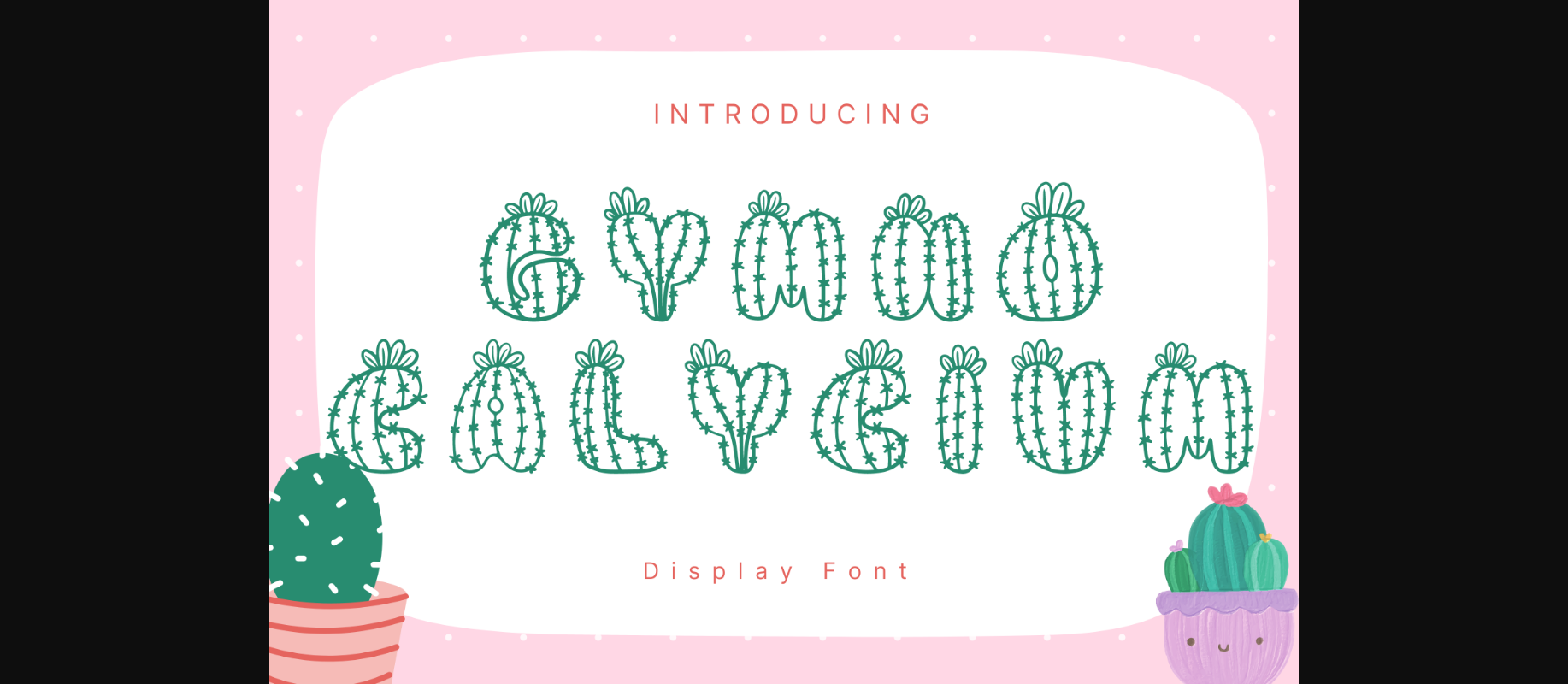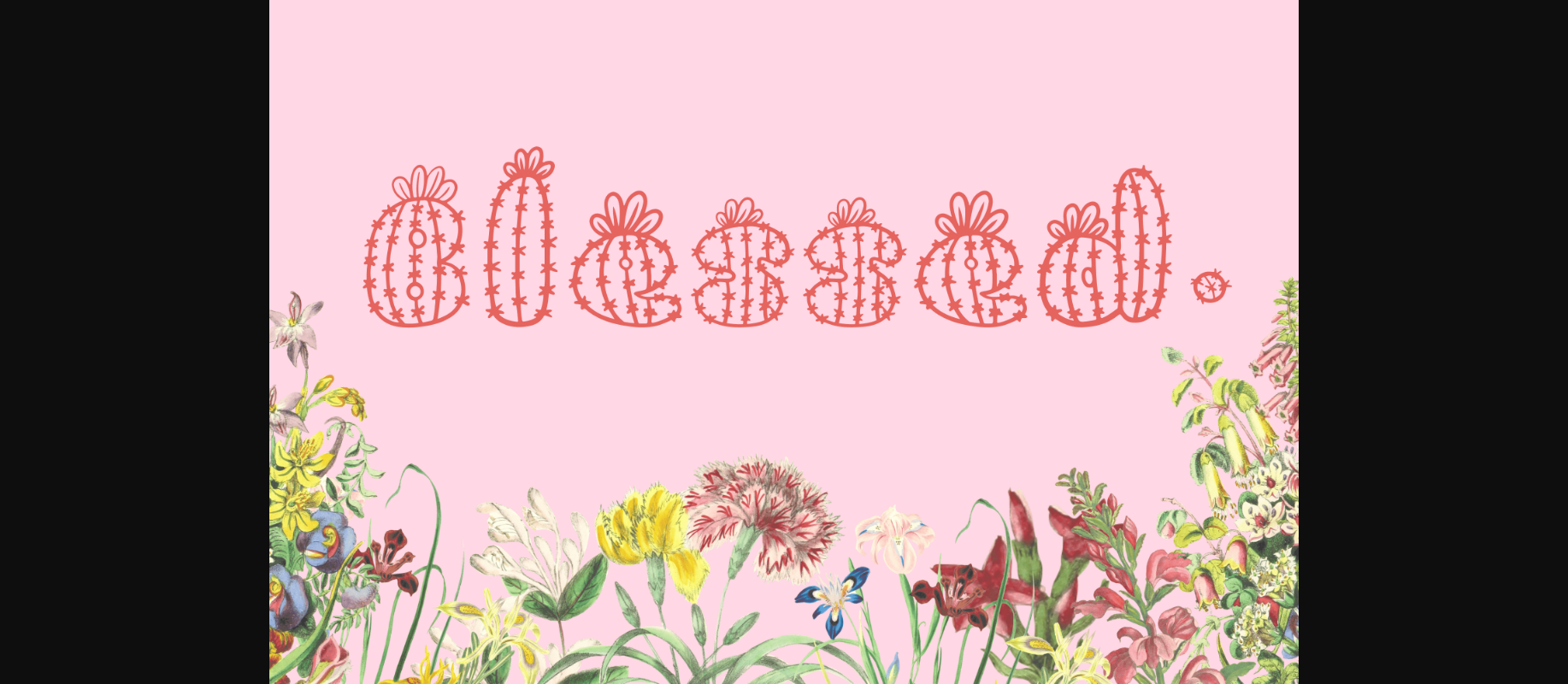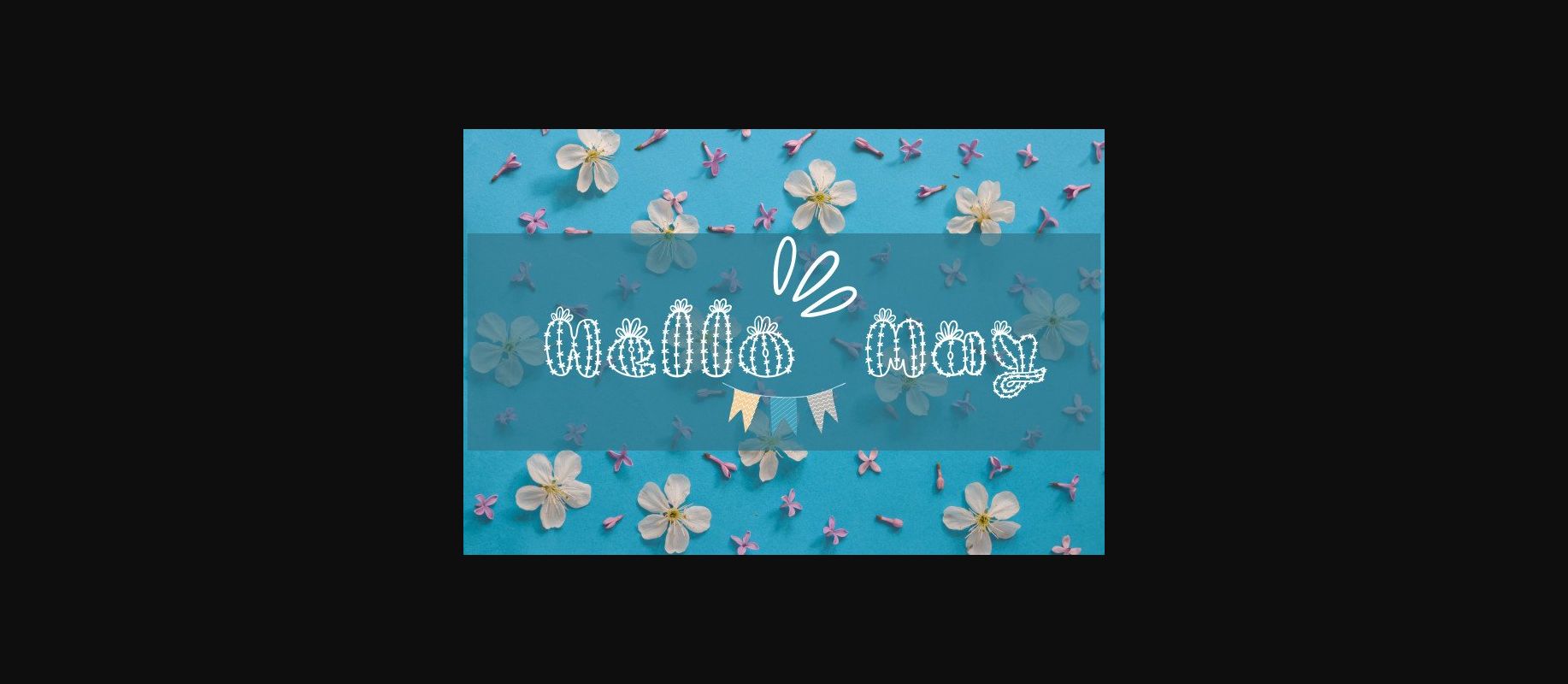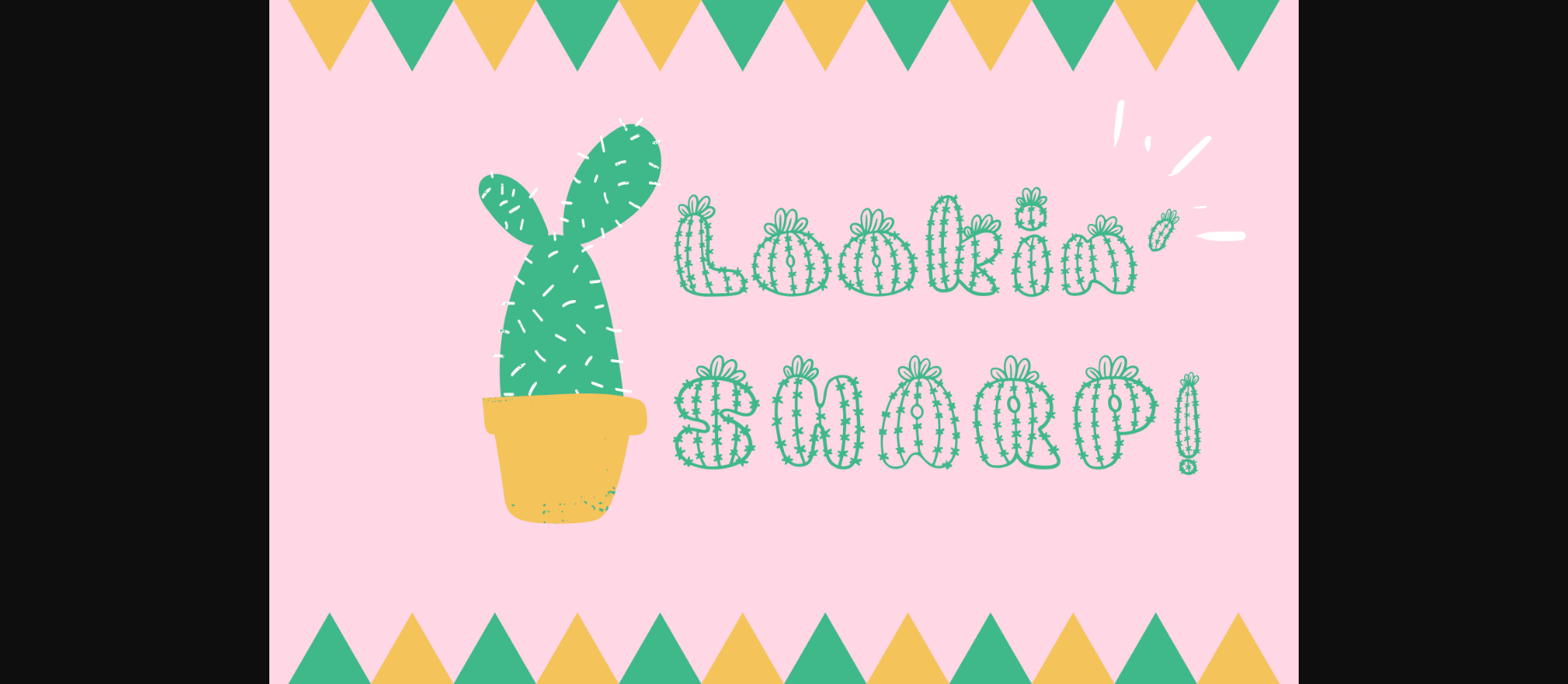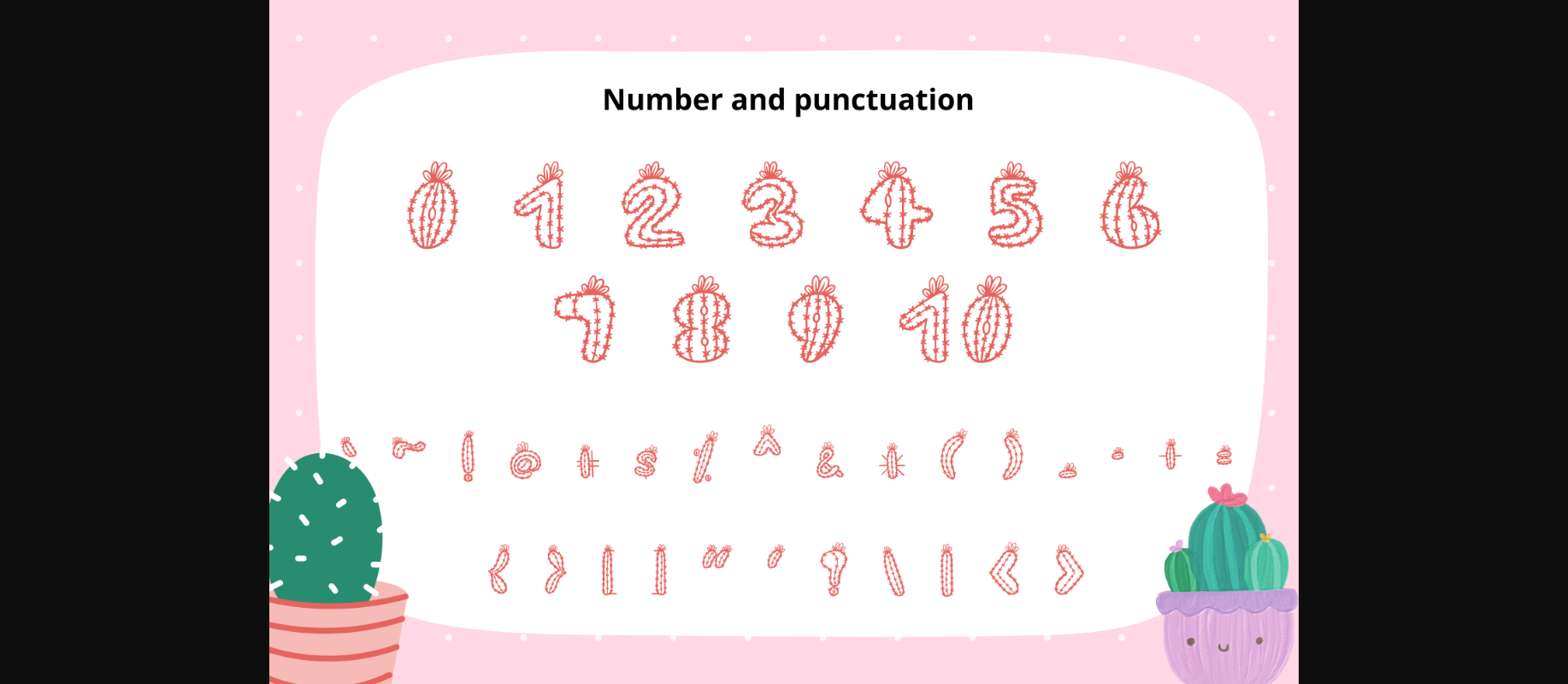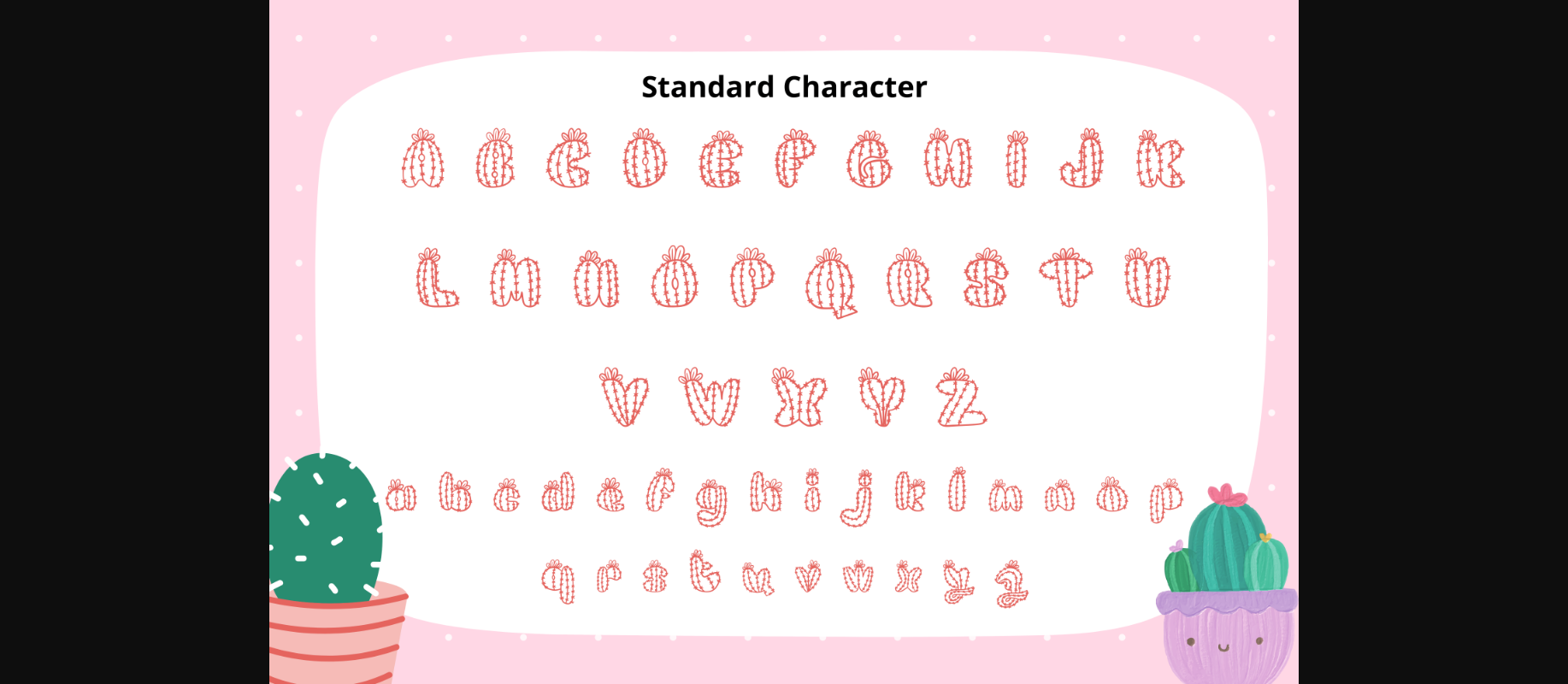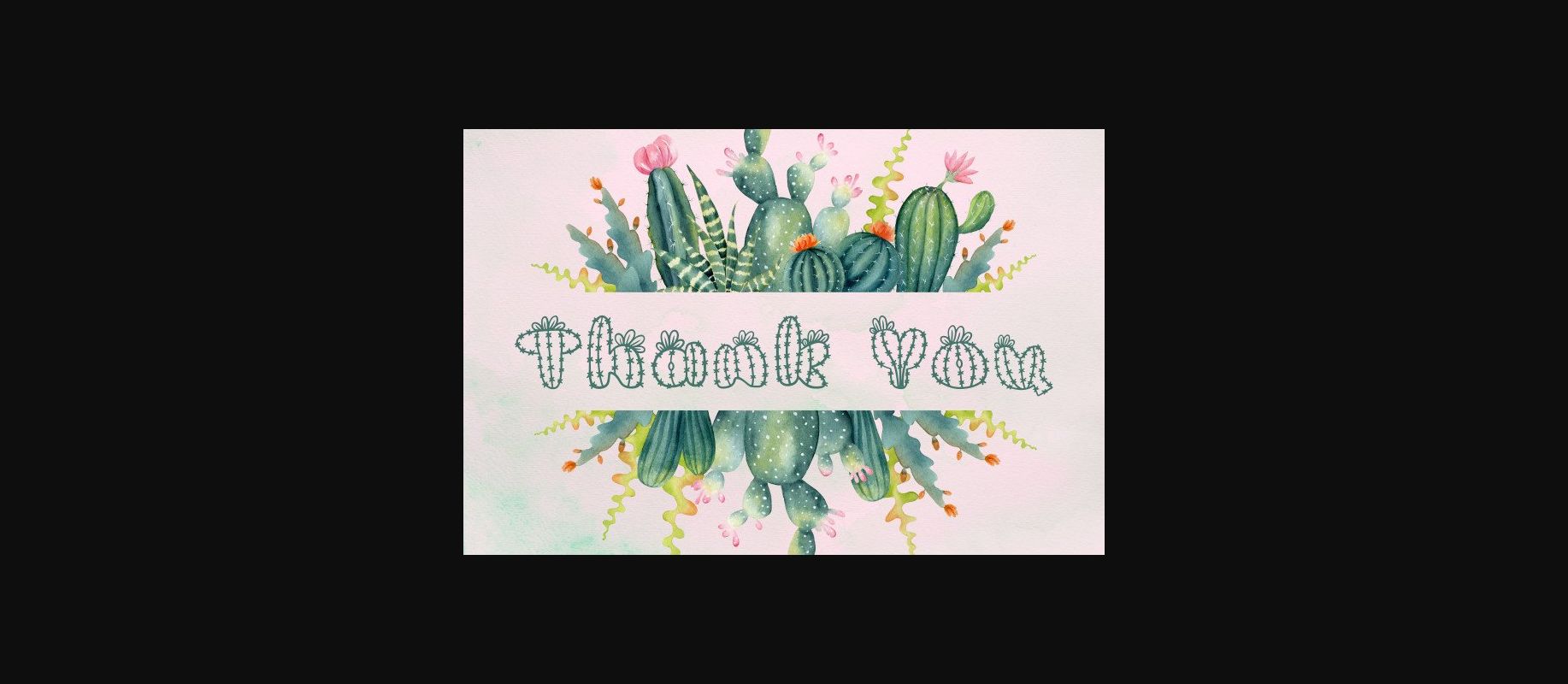
Gymno Calycium is a cute and adorable cactus-themed decorative font. Add this beautiful botanical typeface to any of your projects and you will be impressed by the outcome generated!